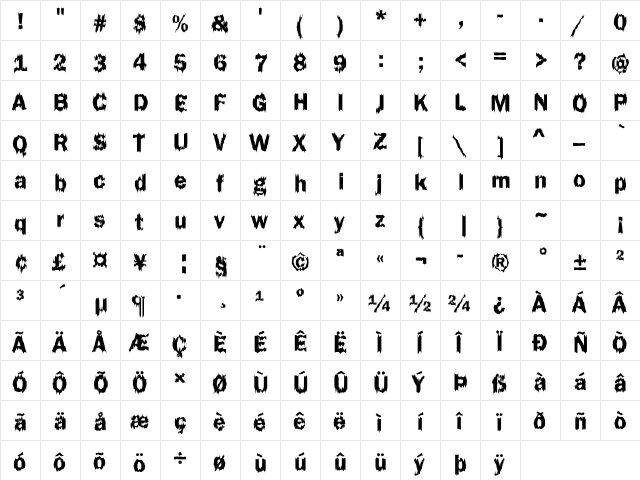
DTCFunkyM38 Regular Font Preview
DTCFunkyM38 Regular
Design Context for DTCFunkyM38 Typeface
DTCFunkyM38 trades formality for fun, with bouncy, characterful letterforms that bring warmth and energy to any project.
Font Pairing: Pairs well with a rounded or humanist sans for body copy, maintaining the friendly tone without relying on DTCFunkyM38 to carry extended reading.
Pro Tip: Use DTCFunkyM38 at larger display sizes where its expressive character can land. Pair with a clean, simple sans for body copy to maintain readability.